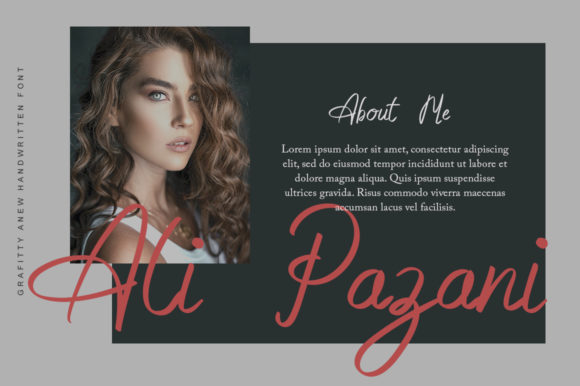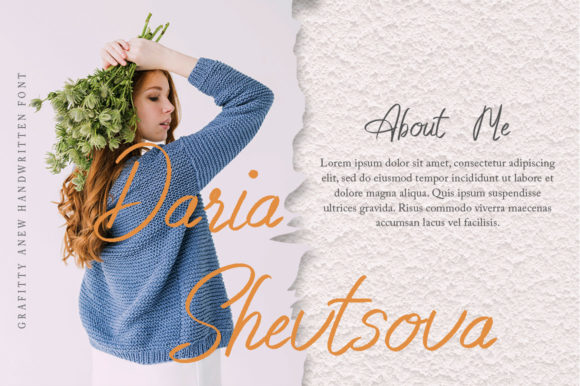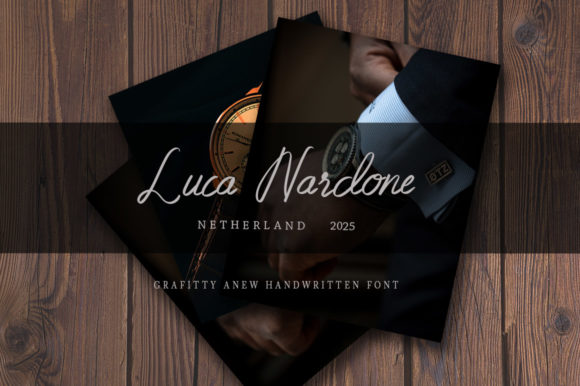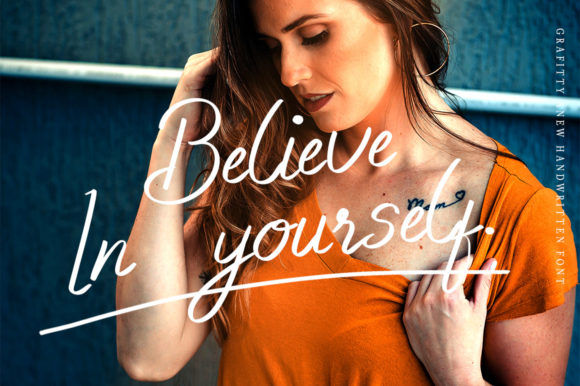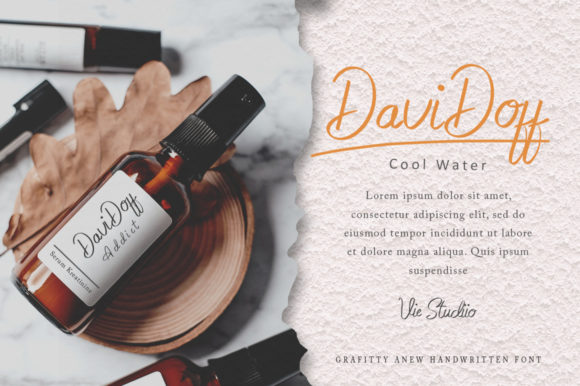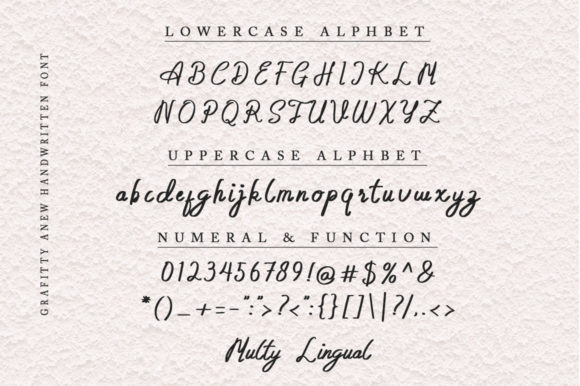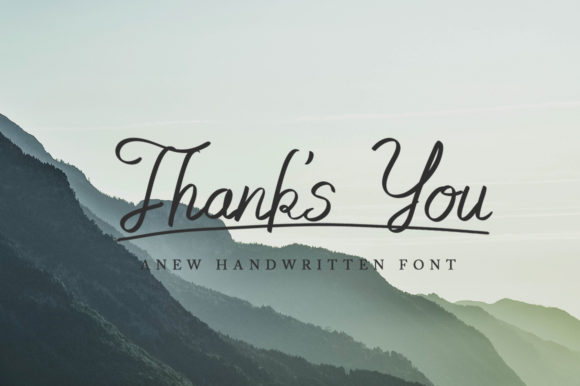
Grafitty Font
About Grafitty Font
Grafitty is an enchanting handwritten font. This versatile script font has a wide spectrum of applications ranging from greeting cards to headlines and is guaranteed to add a romantic feel to your next project.